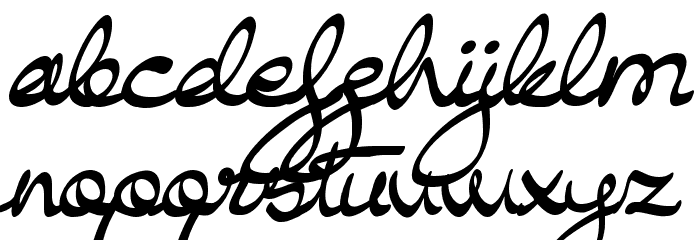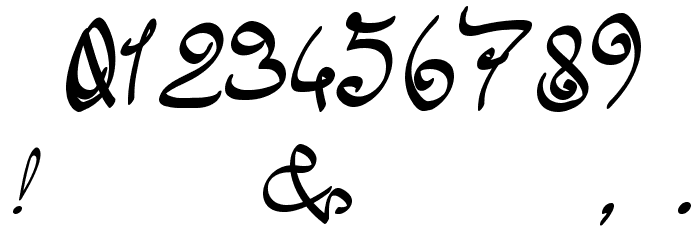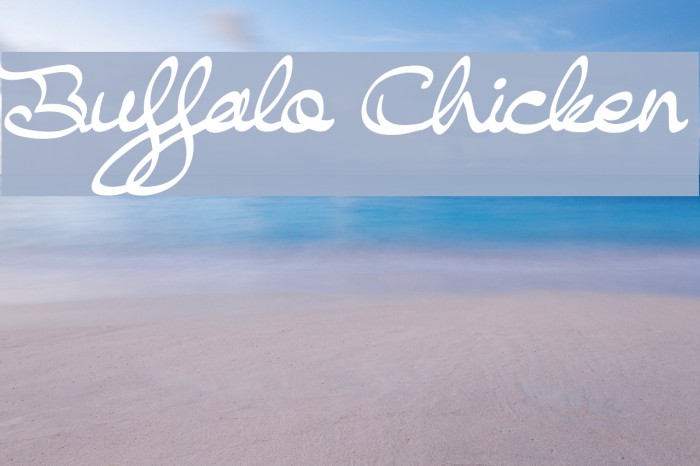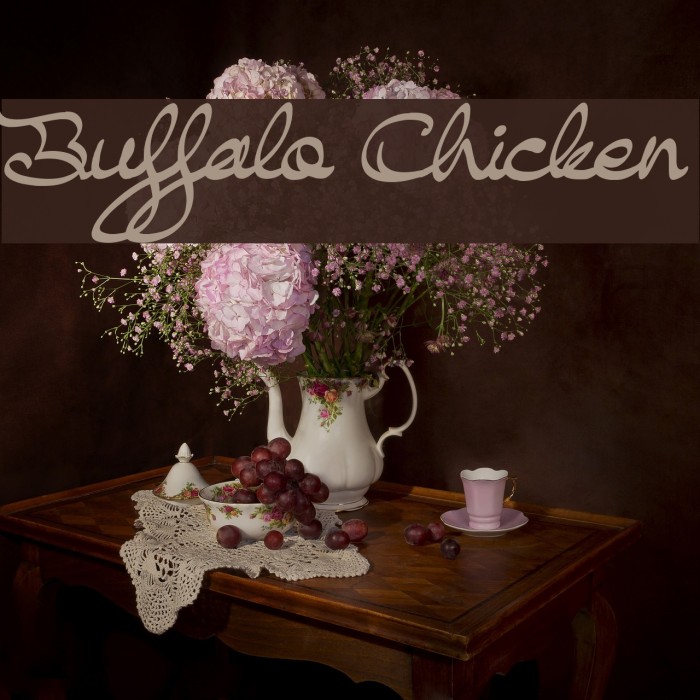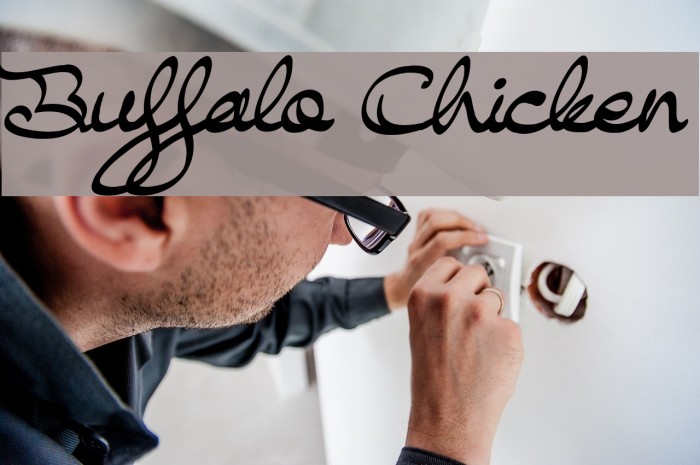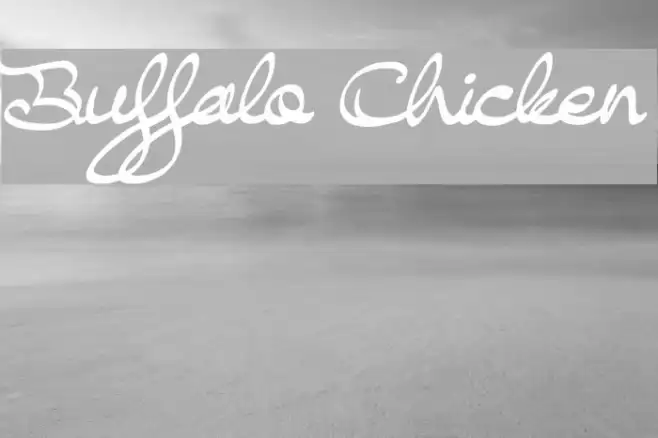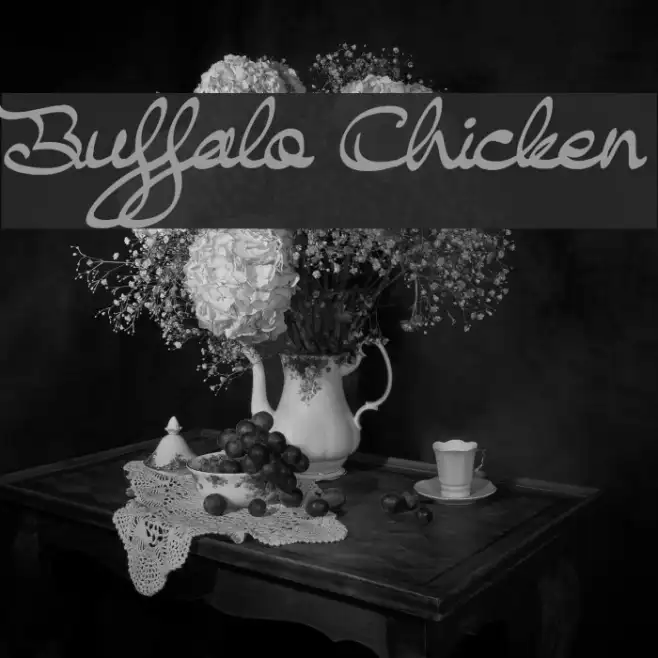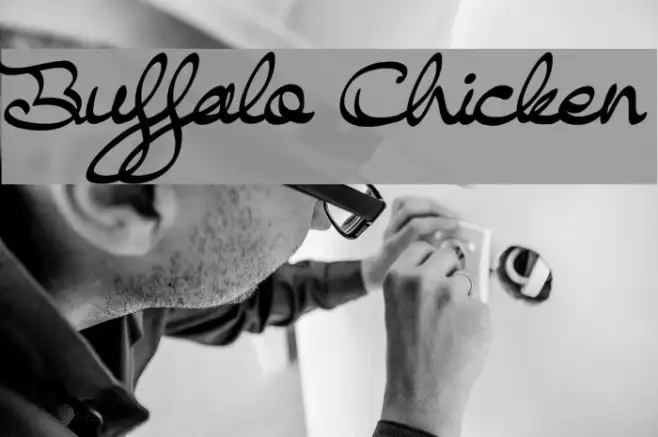
Buffalo Chicken Font
This font exhibits a unique and artistic script style, characterized by its flowing, interconnected letters that create a sense of movement and elegance. The uppercase letters are ornate, with exaggerated curves and loops, while the lowercase letters maintain a more consistent flow, enhancing readability. The numerals are distinct yet harmonize with the overall style, featuring similar curves and flourishes. Special characters like the ampersand and exclamation mark are creatively designed, adding to the font's decorative appeal. This font's intricate design makes it suitable for projects that require a touch of sophistication and creativity.
An artistic script font with flowing, interconnected letters and decorative flourishes.
- Proposed Projects: Ideal for wedding invitations, greeting cards, branding projects, and artistic posters.
- Use Case: Logos, Invitations, Artistic projects